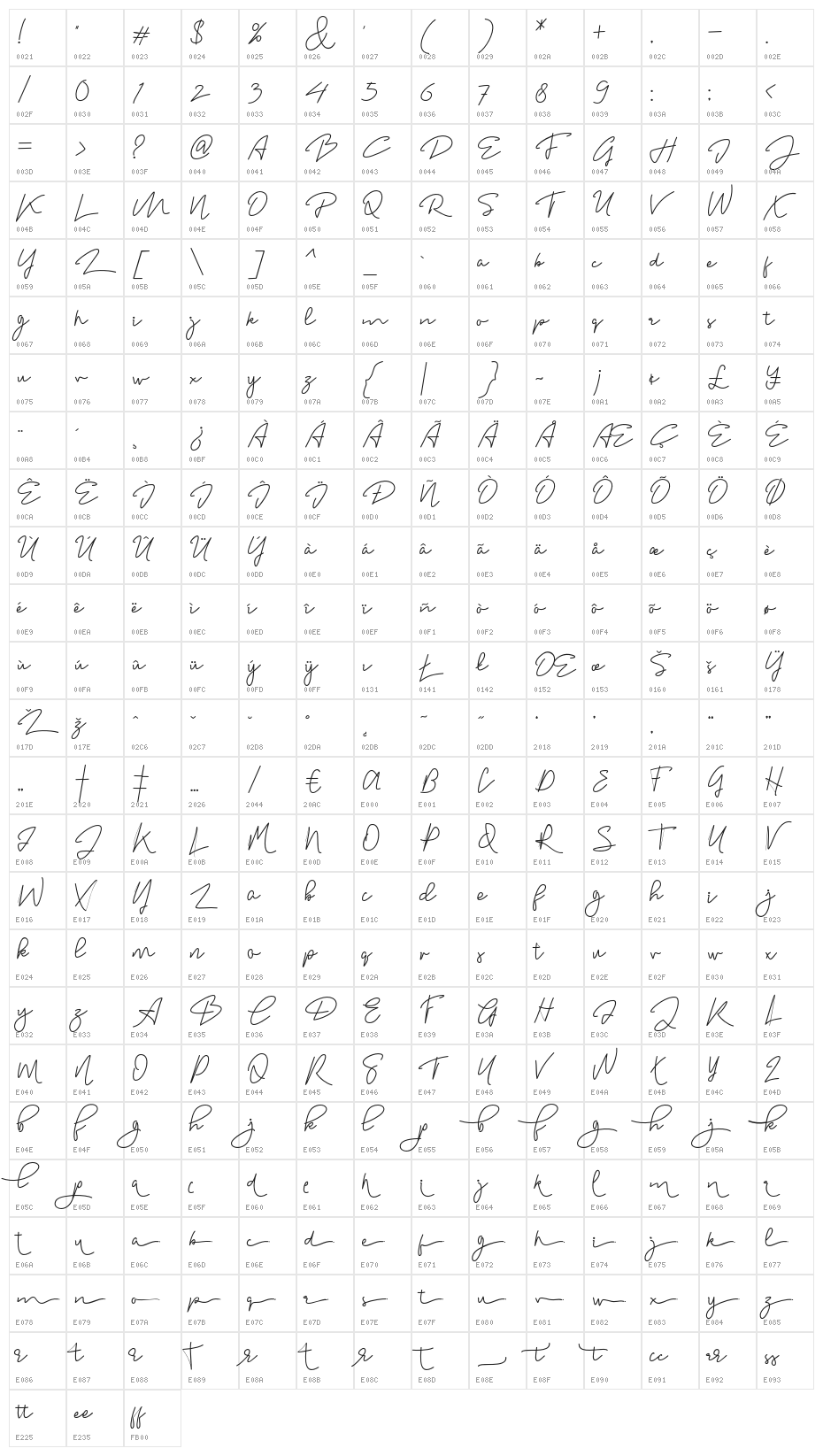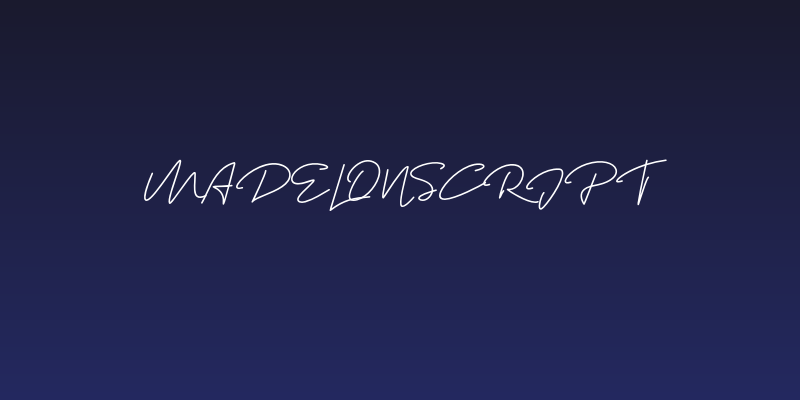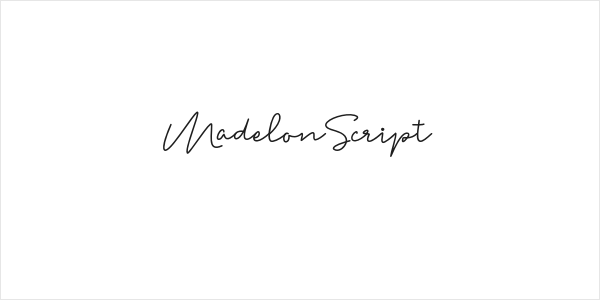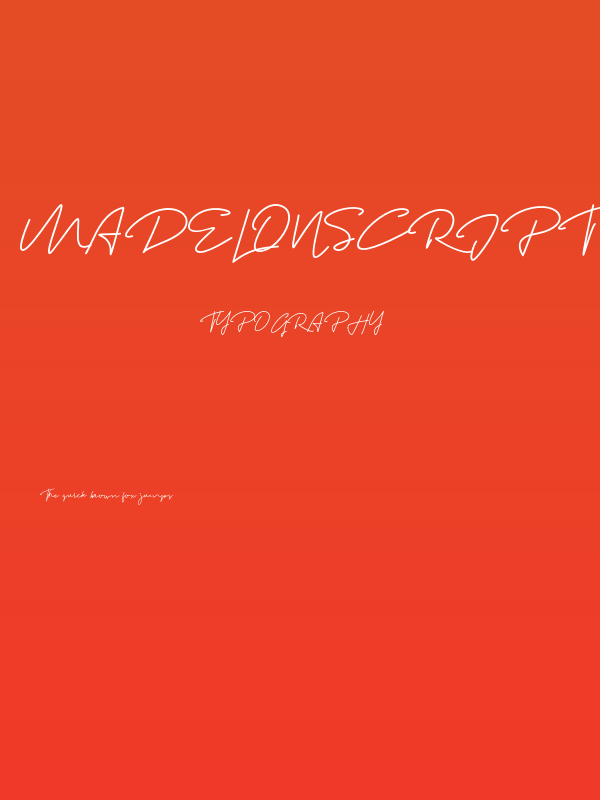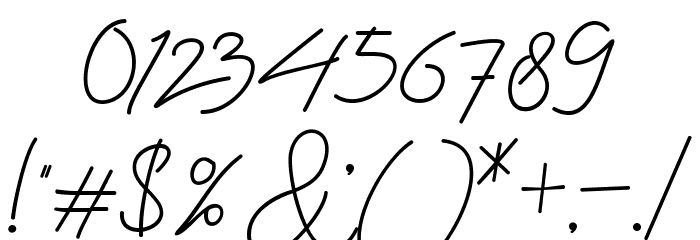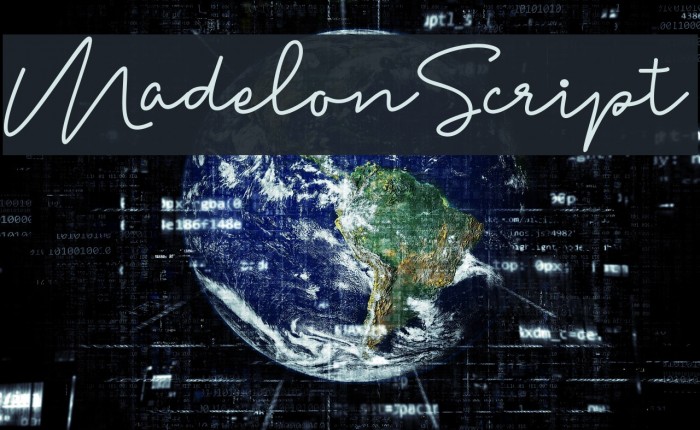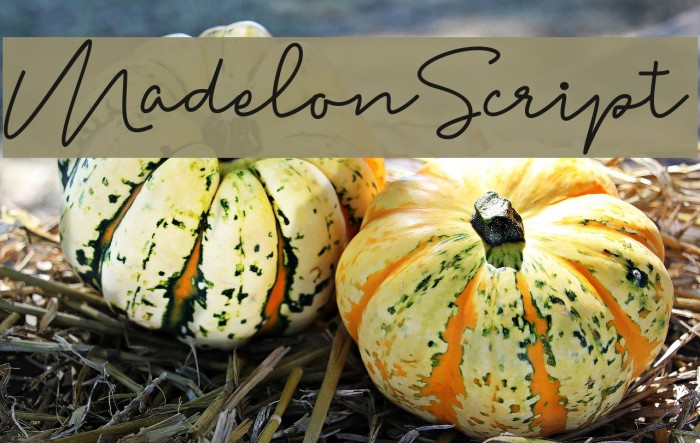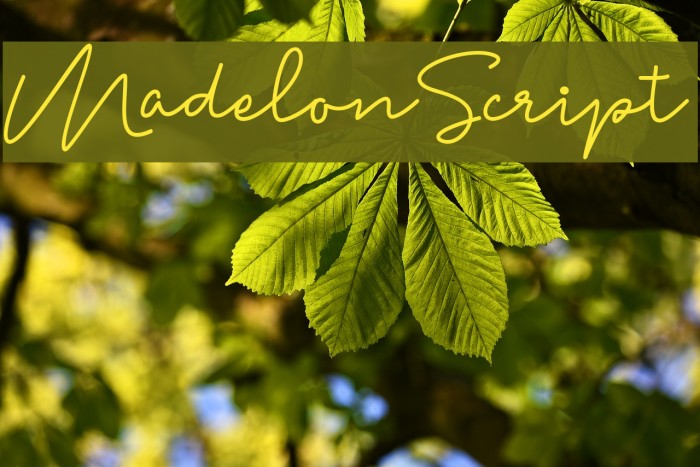
MadelonScript Font
MadelonScript Description
This font exudes a casual and flowing handwritten style, characterized by its smooth and continuous strokes that mimic natural handwriting. The uppercase letters are elegantly connected, while the lowercase letters maintain a consistent flow, enhancing the script's legibility. The numerals and special characters are crafted with the same fluidity, ensuring a cohesive look across all text. Its design is both playful and sophisticated, making it suitable for a variety of creative projects. The overall appearance is modern yet timeless, offering versatility in its application.
| Use Case | Logos, Invitations, Personal stationery |
| Proposed Projects | Ideal for wedding invitations, greeting cards, branding, and personal stationery. |